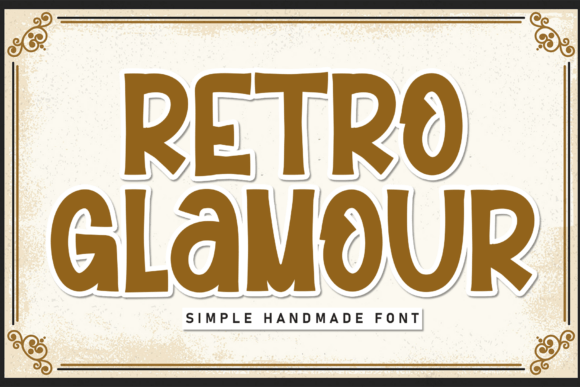
Retro Glamour: A Handwritten Font for Elegant Designs
There’s a particular kind of magic in a design that feels both timeless and personal. It doesn’t shout; it whispers with confidence. This is the space where Retro Glamour lives. As a handwritten display font, it captures a specific, intoxicating allure—a blend of high-end sophistication and playful whimsy. Imagine the confident swirl of a vintage calligrapher’s pen, infused with a modern, joyful spark. It’s the font that doesn’t just write words; it dresses them in a resplendent wave of happiness, transforming a simple message into a sentimental keepsake.
This premium font isn’t about mimicking casual, everyday handwriting. Its personality is carefully crafted. Each letterform flows with an elegant, rhythmic motion, featuring delicate swashes and a balanced x-height that ensures it remains legible at display sizes. The overall appeal is one of irresistibly enchanting charm—perfect for projects that need to convey warmth, celebration, and a touch of luxury without feeling stuffy or overly formal. It’s a creative font that feels human, inviting, and inherently stylish.
Where Retro Glamour Truly Shines: Real-World Applications
Understanding a font’s personality is one thing; knowing where to deploy it is where the real strategy begins. Retro Glamour excels in contexts where emotion and aesthetic are paramount. Think of it as the design equivalent of a beautifully wrapped gift—the presentation elevates the content inside.
- Wedding & Event Stationery: This is its natural habitat. For wedding invites, save-the-dates, and thank-you cards, the font’s sentimental charm is unparalleled. It sets a tone of elegant celebration immediately.
- Branding & Logo Design: For businesses in the boutique, beauty, artisanal food, or lifestyle spaces, Retro Glamour can become a cornerstone of a brand identity. A logo using this typeface suggests craftsmanship, personalized service, and premium quality.
- Packaging & Editorial Design: On product labels, hang tags, or the headers of a magazine layout, it adds a focal point of whimsical sophistication. It draws the eye and communicates a brand’s story before a single word of body copy is read.
- Digital Presence: Used strategically in web design for hero sections, call-to-action buttons, or blog titles, and in social media graphics for quotes, announcements, and promotional posts, it boosts engagement by adding a human, relatable touch.
The Strategic Impact on Your Design Projects
Choosing a typeface like Retro Glamour is a strategic decision that influences more than just aesthetics. It affects how your audience perceives and interacts with your work.
Visual Hierarchy & Readability: As a display font, its primary role is to command attention in headlines, logos, and short phrases. Pairing it thoughtfully is crucial. For body text, it should be contrasted with a clean, highly readable serif font or sans serif font. This pairing creates a clear hierarchy: Retro Glamour delivers the emotional impact and personality, while the secondary typeface ensures the message is communicated with clarity and ease.
Brand Perception & Consistency: Consistently using this font across touchpoints builds a recognizable and cohesive brand identity. It tells a story of a brand that values elegance, creativity, and a personal connection with its audience. The professionalism comes from this intentional, consistent application, not just from the font itself.
A Practical Guide to Using This Creative Font
Ready to integrate Retro Glamour into your toolkit? Here’s how to approach it like a pro.
- Evaluate the Project Fit: Does the project’s goal align with the font’s personality? It’s perfect for joyful, celebratory, or luxurious themes. It might not be the best fit for a corporate financial report or a technical manual.
- Test Font Pairings Rigorously: Don’t just eyeball it. Set your headline in Retro Glamour and experiment with different body text fonts. A classic serif font like Garamond can enhance the vintage feel, while a geometric sans serif can create a modern, striking contrast.
- Review All Included Styles: A robust commercial font often includes more than just the base style. Check for alternates, ligatures, and swashes. These features allow you to customize words and add unique flair, making your designs truly one-of-a-kind.
- Prioritize Readability in Context: Always view your design at the intended size and medium. A flourish that looks gorgeous in a logo mockup might become illegible as a tiny caption on a website. Test it.
Ultimately, Retro Glamour is more than just another script font in your design assets folder. It’s a versatile tool for storytelling. It allows designers, entrepreneurs, and creators to infuse projects with a tangible sense of joy and elegance. By understanding its strengths and applying it with strategic intent, you can indeed unleash your creative prowess and watch as the commonplace transforms into captivating works of art. It’s a testament to how the right typeface doesn’t just display words—it elevates them.